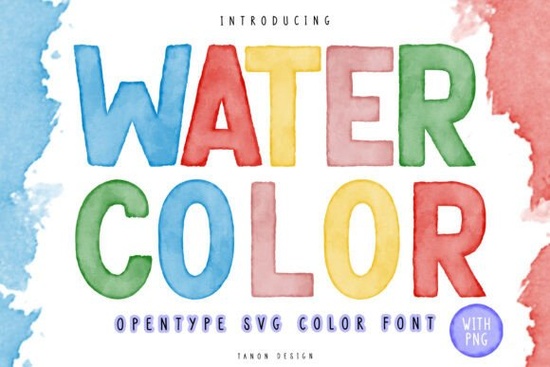
If you've ever wanted to add a hand-painted, artistic feel to your designs without picking up a single brush, the Watercolor Font from Creative Fabrica is worth a close look. This colorful watercolor font for creative projects uses OpenType SVG color technology to deliver realistic watercolor texture brush strokes right inside your text. Whether you're working on t-shirt designs, mugs, cards, or digital graphics, it brings a natural painted look that's difficult to achieve with standard flat fonts.
What Makes This Watercolor Font Different from Regular Fonts?
Most fonts are flat, single-color vector shapes. This one is different. It's an Opentype SVG Color font, meaning each letter carries a full-color watercolor texture inside it. The brush strokes look real like someone dipped a brush in watercolor paint and carefully wrote each character by hand.
One standout feature is the ability to blend with your background textures. Because the font includes realistic transparency in the watercolor texture, it lets the background show through subtly. This makes it perfect for layering over patterned papers, fabric textures, or any design where you want the text to feel like part of the artwork rather than sitting on top of it.
Having both the SVG font file and the PNG backup means you're covered no matter what tools you use. SVG color fonts are becoming more widely supported, but the PNG option ensures nobody gets left out.
What Can You Create with a Watercolor Texture Font?
This font works across a wide range of projects. Here are some popular uses:
- T-shirt designs watercolor text pairs beautifully with floral or boho-themed graphics
- Greeting cards and invitations wedding, birthday, and baby shower cards look soft and elegant
- Digital designs social media graphics, blog headers, and wallpapers
The versatility of watercolor lettering makes it a reliable choice whenever you want something that feels artistic and warm.
This watercolor font fills a different niche it's softer, more organic, and suits projects where you want a natural, artistic feel. Think of it as the go-to option for feminine designs, nature-themed layouts, or anything that calls for a gentle, handcrafted touch.
- Use a contrasting background. While the font can blend with textures, it still needs enough contrast to stay readable. Always test on your specific background before finalizing.
- Scale carefully. SVG fonts contain raster data, so enlarging them too much may reduce quality. Work at the size you need for your final output.
- Pair it with simple fonts. For body text or supporting copy, use a clean sans-serif or serif. Let the watercolor font handle headlines and accent words.